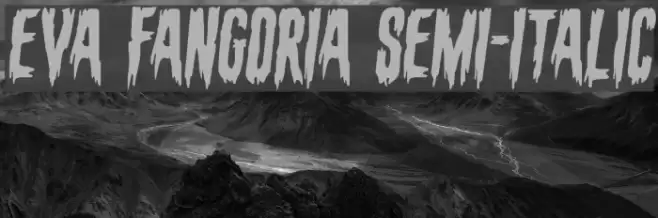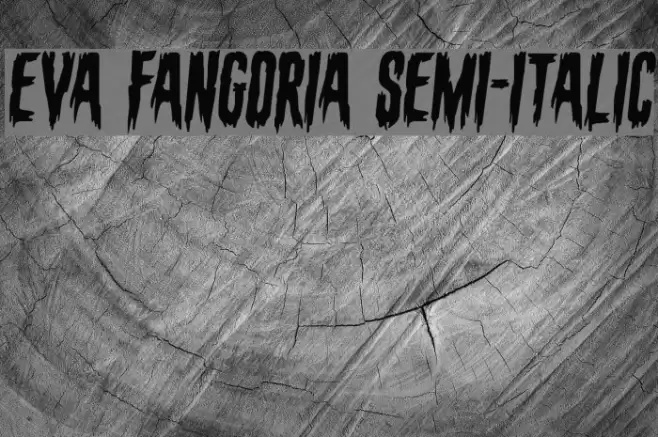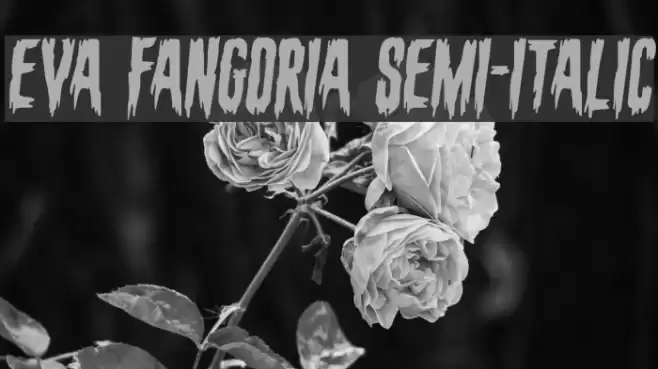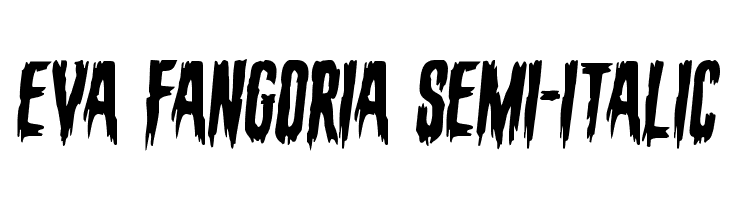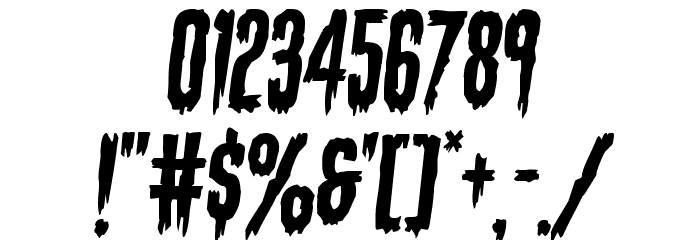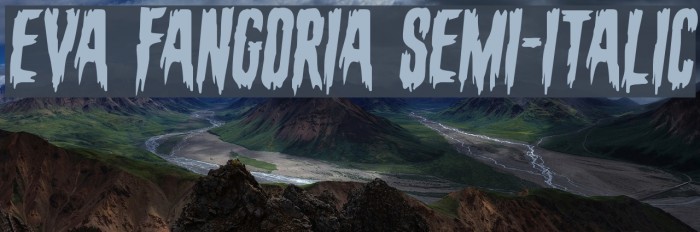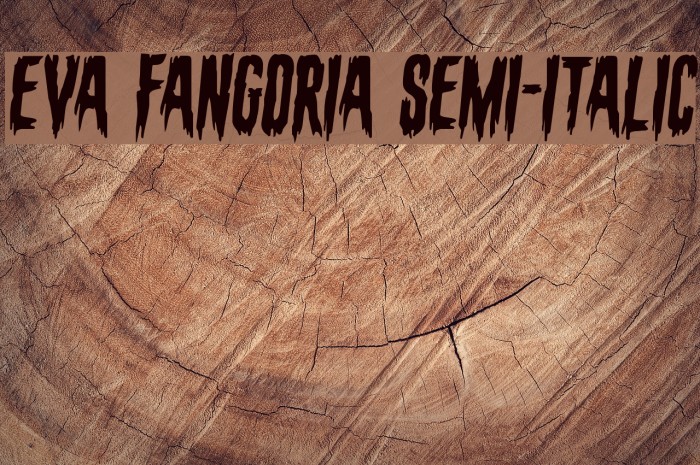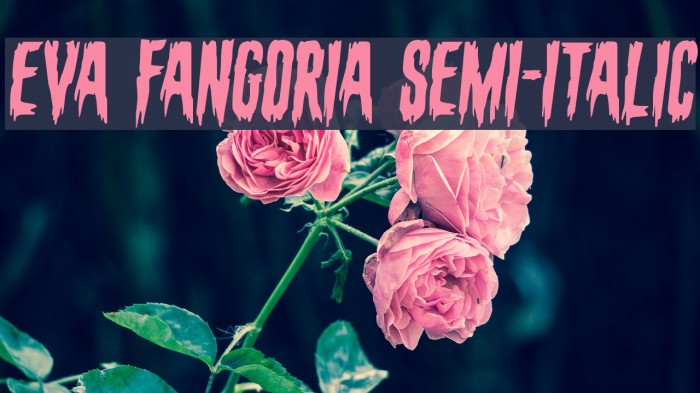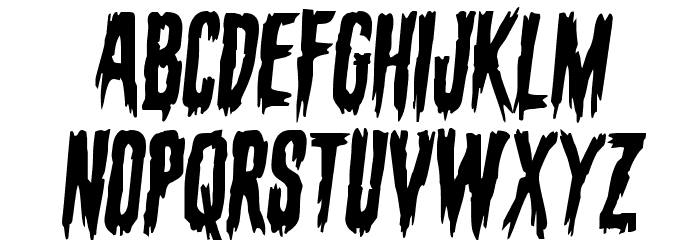
Eva Fangoria Semi-Italic Font
Eva Fangoria Semi-Italic Description
This font features a bold and jagged design, reminiscent of horror or thriller themes. The letters have an irregular, torn appearance, giving them a dynamic and edgy look. The strokes are uneven, with sharp angles and pointed ends, creating a sense of movement and urgency. This style is particularly effective for capturing attention and conveying a sense of drama or intensity. The font's unique character makes it suitable for creative projects that require a bold and distinctive visual impact.
A bold, jagged font with a horror-themed, edgy design from Uncategorized fonts.
- Proposed Projects: Ideal for horror movie posters, Halloween event flyers, edgy graphic novels, and themed merchandise.